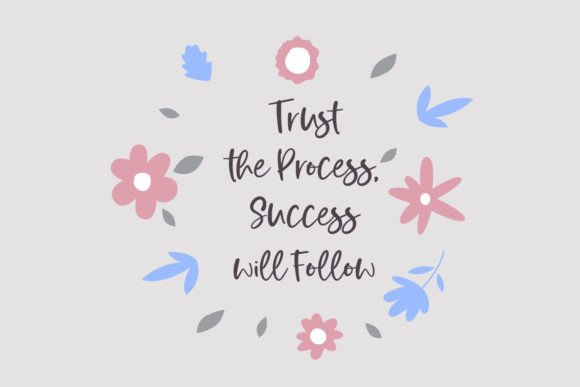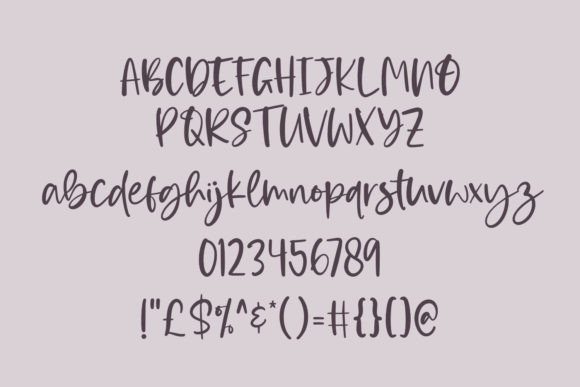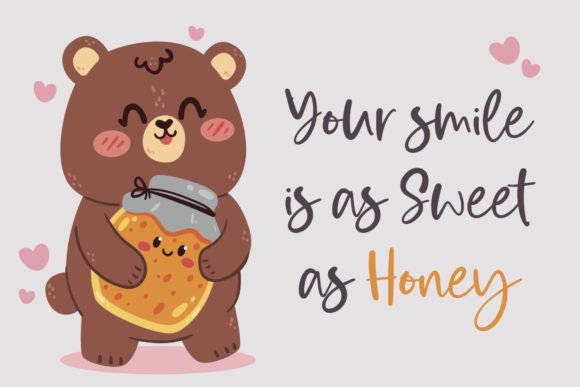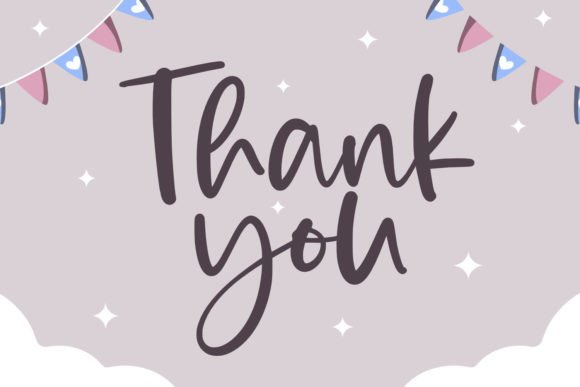
The Perfect Handwritten Touch: Unveiling Ailenda Script Font
As a designer, there’s nothing quite like that moment when an idea strikes and everything comes together. The blank canvas, the flowing thoughts, the perfect font – it’s a feeling that’s hard to describe, but easy to recognize. And for many creatives, the Ailenda Script Font is that missing piece that elevates their designs from ordinary to extraordinary.
This elegant script font is designed to add a touch of personality and warmth to any project. From wedding invitations to business cards, Ailenda Script Font brings a handwritten feel that’s both charming and sophisticated. Whether you’re a seasoned designer or just starting out, this versatile font is sure to be a valuable addition to your toolkit.
Ailenda Script Font Key Features
- Font Family: Ailenda Script, Ailenda Script Italic, Ailenda Script Bold, Ailenda Script Bold Italic
- Character Set: Latin, Cyrillic, Greek
- Unique Characteristics: Hand-drawn design, elegant and sophisticated feel, perfect for wedding invitations, greeting cards, and other creative projects
Ailenda Script Font Review
I recently had the chance to work with the Ailenda Script font, and I must say, it’s a delightful addition to any designer’s toolkit ✨. Here are some of its strengths and weaknesses:
- Expressive flair: Ailenda Script’s flowing lines and elegant connections evoke a sense of sophistication and whimsy ✨.
- High-quality rendering: The font’s smooth curves and fine details make it perfect for professional designs.
- Flexibility: Ailenda Script comes in a range of weights and styles, allowing designers to tailor their look to suit their needs.
- Lack of versatility for digital use: While Ailenda Script looks stunning in print, its complex connections can make it tricky to use in digital applications ⚠️.
- May require custom spacing: Due to its flowing nature, Ailenda Script can sometimes be too dense or too sparse without careful spacing adjustments ⚠️.
Overall, I’m impressed with Ailenda Script’s unique charm and professional quality. With some careful consideration and adjustments, it can be a fantastic addition to any designer’s arsenal. However, it’s essential to be aware of its limitations, especially when working on digital projects.
The Ailenda Script Font is perfect for creating elegant and sophisticated designs. Some common use cases include:
- Editorials and publications
Remember to adjust the font size and style to ensure the text is legible and easy to read.